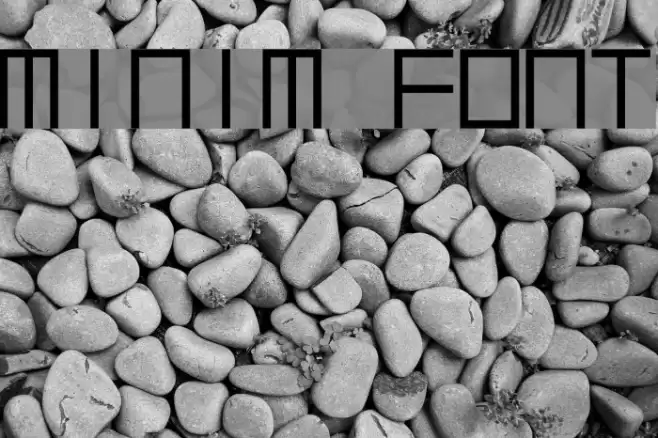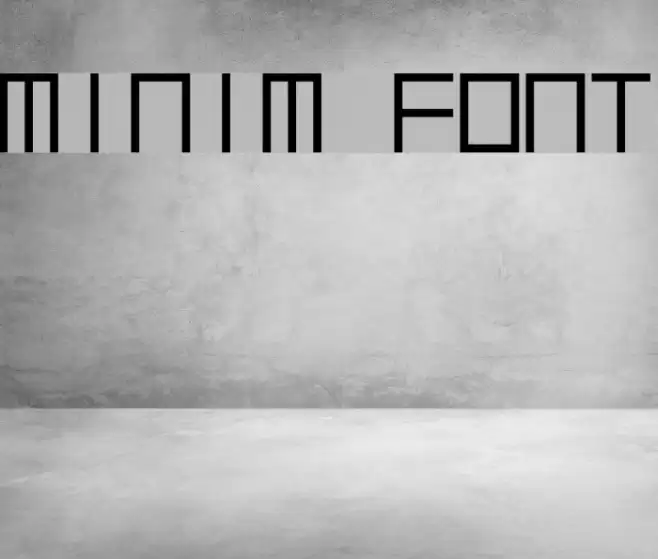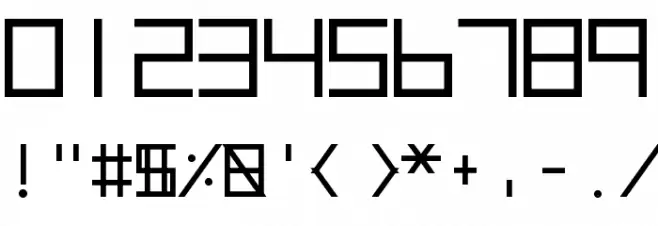
minim Font
minim Description
This font features a geometric and angular design, characterized by its sharp edges and straight lines. The uppercase and lowercase letters maintain a consistent height, creating a uniform appearance. The numerals and special characters follow the same angular style, contributing to a cohesive look. The font's unique structure gives it a futuristic and technical feel, making it stand out in digital and modern contexts. Its bold strokes and clear-cut angles make it highly legible, even at smaller sizes. The consistent width of the characters adds to its structured and orderly aesthetic, making it suitable for projects that require a modern and clean look.
A geometric, angular font with a futuristic and technical style from Uncategorized fonts.
- Proposed Projects: Ideal for tech branding, digital interfaces, modern posters, and futuristic designs.